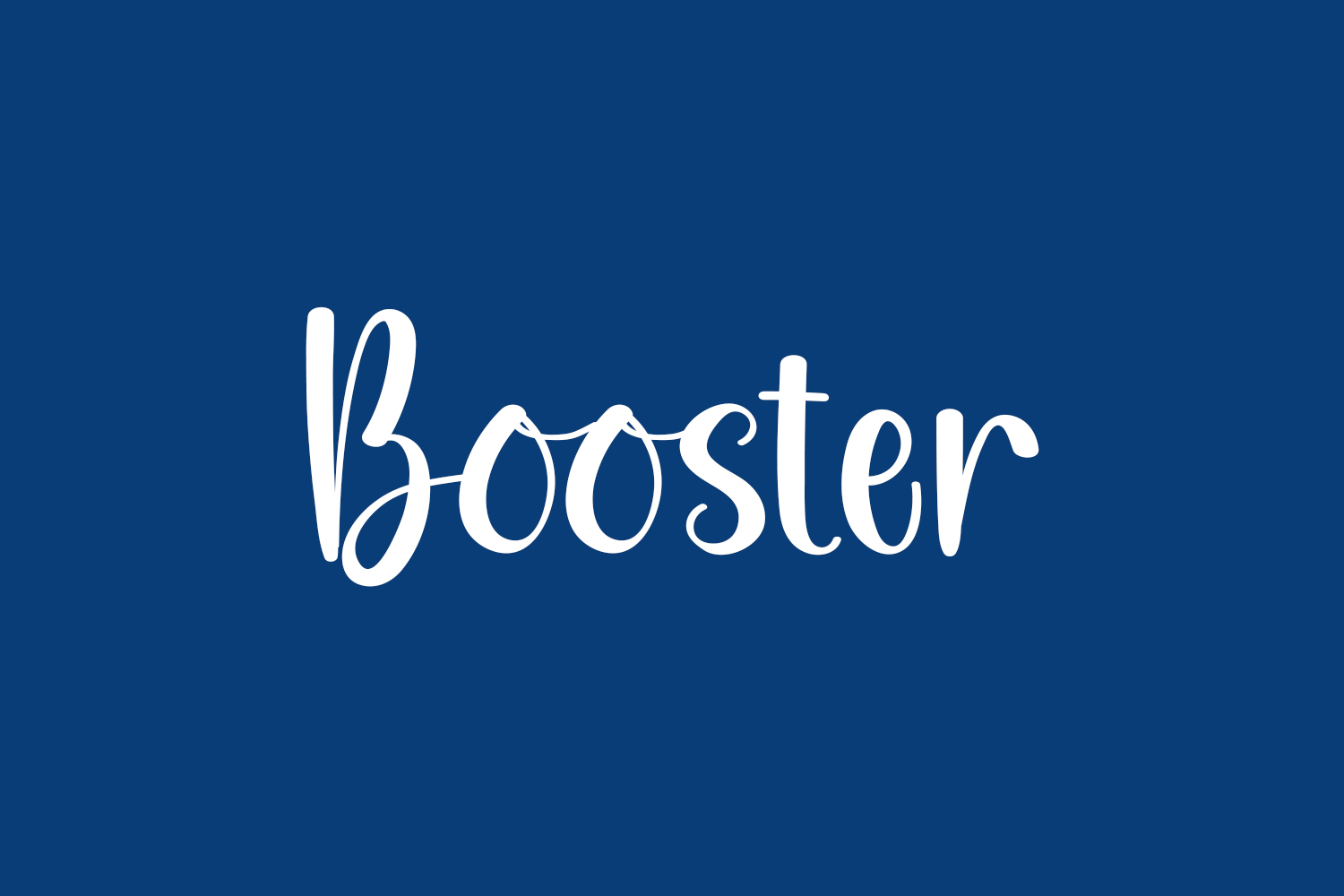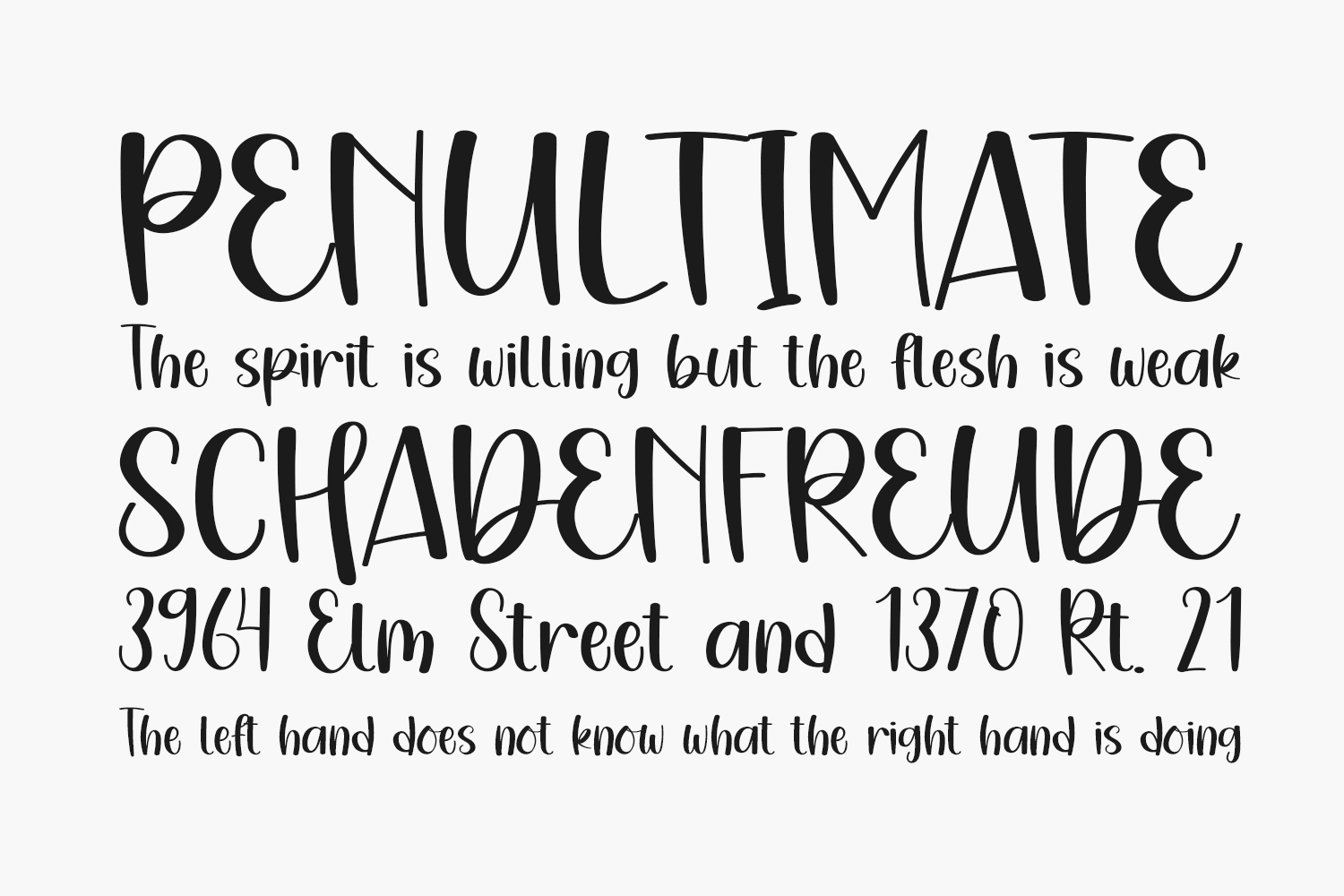
Booster Free Font presents itself as a charming and refined script font, radiating sophistication and elegance. Tailored with precision, this font caters specifically to those seeking to infuse their designs with a captivating and rejuvenating aesthetic. Booster Free Font is free for personal use only. Please purchase the full version for commercial use.
Designed by Erik Studio